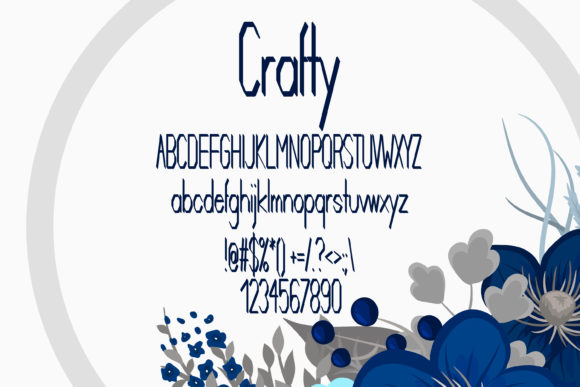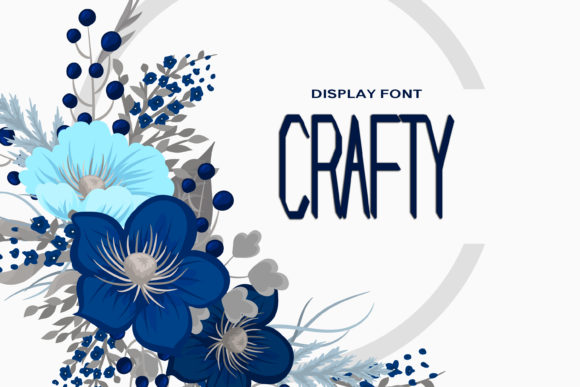
Crafty Font: Elevate Your Designs with a Unique Geometric Twist
In the world of typography, fonts play a crucial role in bringing ideas to life. For designers and crafters, finding the perfect font can be a daunting task, especially when looking for something that adds a touch of futurism to their work. This is where Crafty Font comes into play – a simple yet unique display font that can instantly elevate your designs with its geometric shapes.
What is Crafty Font?
Crafty Font is a display font that boasts a geometric design, making it perfect for futuristic and modern projects. Its unique shape and structure give it a distinctive look that can add a touch of sophistication to any design. Whether you’re working on a logo, a poster, or a website, Crafty Font is sure to make your project stand out.
Key Features of Crafty Font
- Geometric Shape: Crafty Font features a geometric shape that gives it a unique and modern look.
- Simple yet Unique: Despite its simplicity, Crafty Font has a distinctive look that sets it apart from other fonts.
- Display Font: Crafty Font is a display font, making it perfect for headlines, titles, and other display text.
- Futuristic Look: The geometric shape of Crafty Font gives it a futuristic look that’s perfect for modern projects.
Why Use Crafty Font?
There are many reasons why designers and crafters should consider using Crafty Font in their projects. Here are a few:
- Add a Touch of Futurism: Crafty Font’s geometric shape gives it a futuristic look that’s perfect for projects that require a modern touch.
- Stand Out from the Crowd: Crafty Font’s unique design makes it a great choice for designers who want to create projects that stand out from the crowd.
- Perfect for Display Text: Crafty Font is a display font, making it perfect for headlines, titles, and other display text.
- Easily Readable: Despite its unique design, Crafty Font is easily readable, making it perfect for projects that require a font that’s both stylish and legible.
How to Use Crafty Font
Using Crafty Font is easy. Here are a few tips to get you started:
- Pair it with a Simple Font: Pair Crafty Font with a simple font to create a striking contrast that adds depth to your design.
- Use it for Headlines and Titles: Crafty Font is perfect for headlines and titles, so use it to add a touch of futurism to your project’s display text.
- Experiment with Colors: Crafty Font looks great in bold colors, so don’t be afraid to experiment with different hues to find the perfect look for your project.
Here are a few tips for designers and crafters who want to get the most out of Crafty Font:
- Keep it Simple: Crafty Font is a simple font, so keep your design simple and clean to let the font shine.
- Play with Shapes: Crafty Font’s geometric shape makes it perfect for designs that feature shapes and patterns.
- Use it for Branding: Crafty Font is a unique font that can help create a distinctive brand identity.
Crafty Font is a unique and versatile font that’s perfect for designers and crafters who want to add a touch of futurism to their projects. Its geometric shape and simple yet distinctive design make it a great choice for a wide range of projects, from logos and posters to websites and more. With its ease of use and flexibility, Crafty Font is sure to become a favorite among designers and crafters.